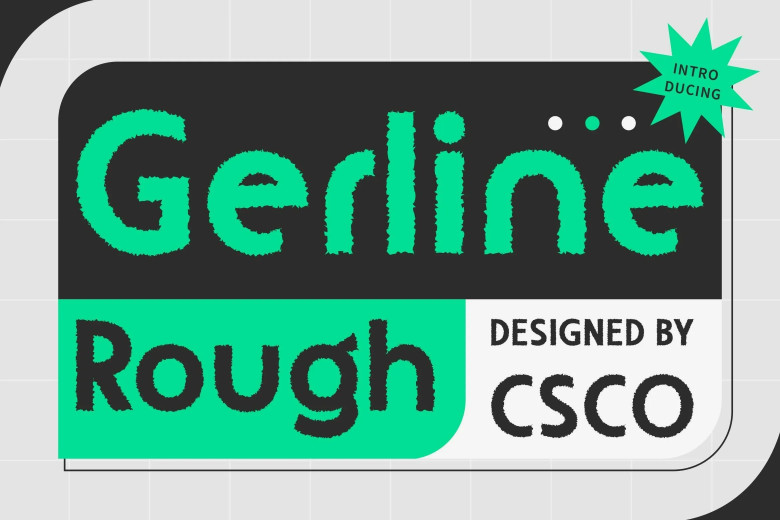
Gerline Rough Font
Gerline Rough is a clean sans-serif typeface with a raw feel that looks good in any project you’re working on. Its special look lends the font well to headlines, posters, and any other use where you want to grab the attention of the reader.
Unlike most bills, Gerline Rough is concise in its design yet still retains good legibility, hence making good use of the limited space. This makes it ideal for use in places whereby the space is limited they include banners and headers.
Feel the chic minimalism of GerlineRough that will add a raw touch to the overall impression and contribute to the creation of impressive sections. The feature enhances the appearance of the design making the final outputs to be unique.
Nevertheless, as previously stated, Gerline Rough has a gravelly feel that can be applied to a various of purposes. Whether for a poster, a packaging or a logo, GerlineRough enhances your projects and make them stand out and effective.
Gerline Rough Sans Serif Font